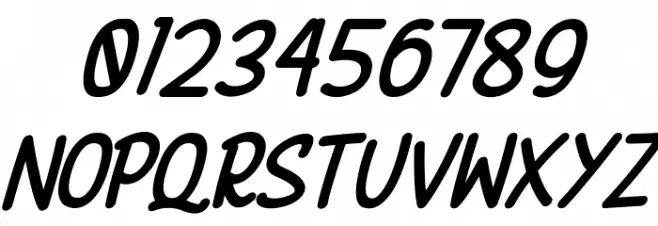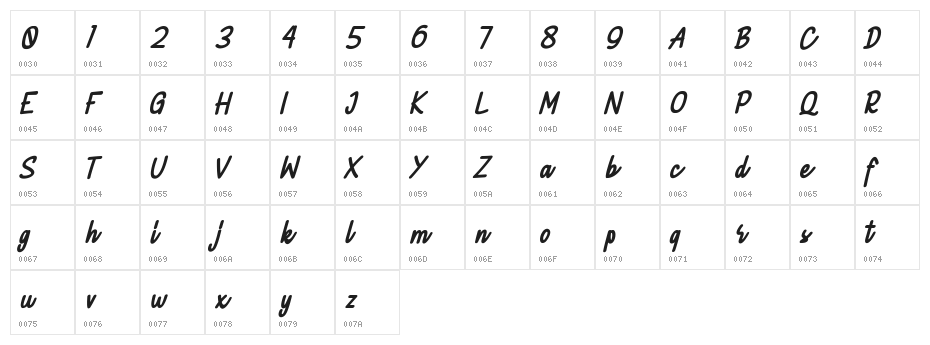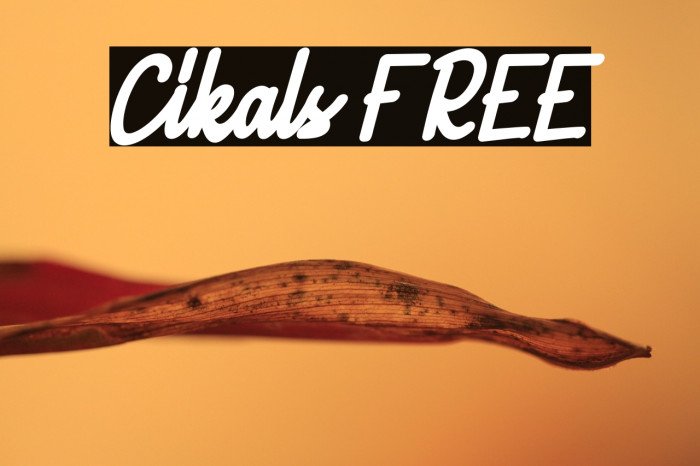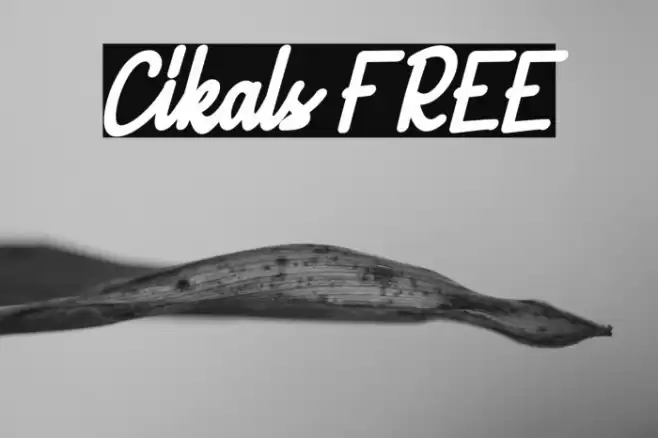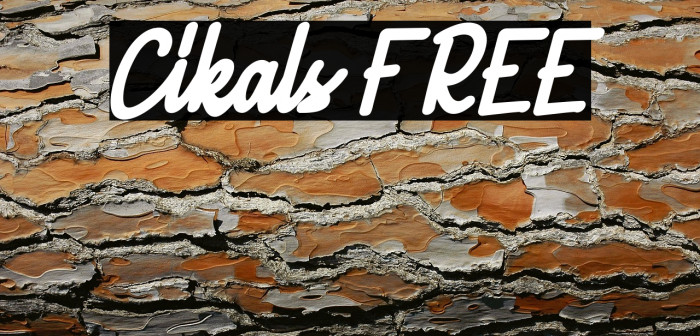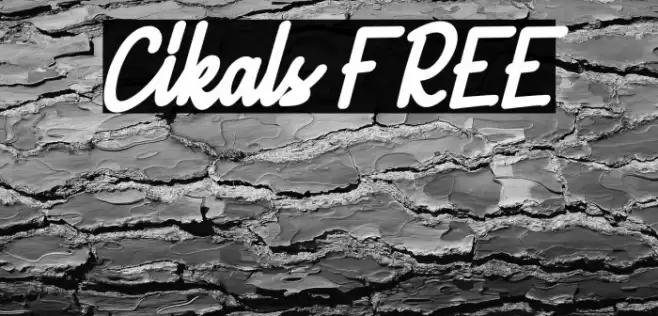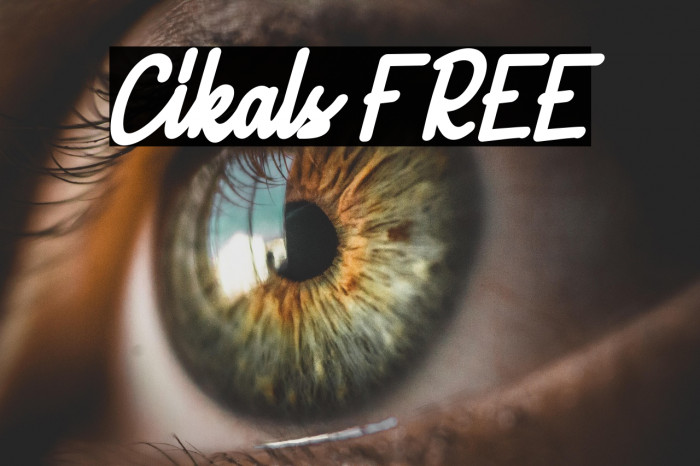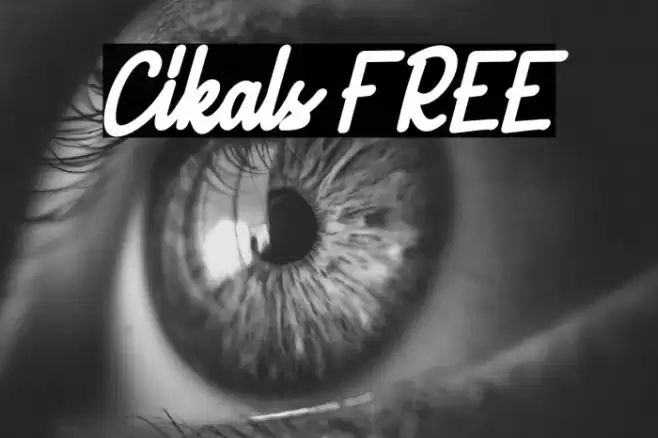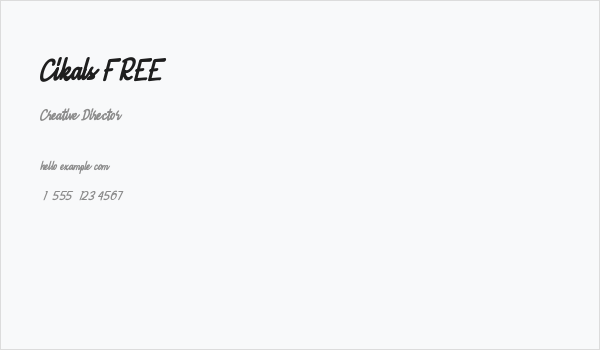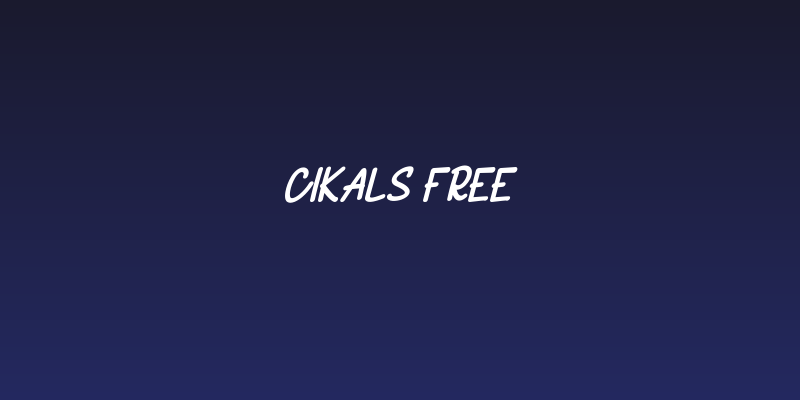
Cikals FREE Font
Cikals FREE Description
This font features a dynamic and energetic script style, characterized by its flowing, cursive letterforms. The uppercase letters are bold and slightly slanted, giving a sense of motion and fluidity. The lowercase letters maintain a consistent style, with smooth curves and a connected, handwritten appearance. The numerals are clear and legible, matching the overall aesthetic with a slight slant. Special characters are integrated seamlessly, maintaining the script's cohesive look. This font exudes a casual yet stylish vibe, making it suitable for a variety of creative applications.
| Proposed Projects | Ideal for branding, invitations, greeting cards, and social media graphics. |